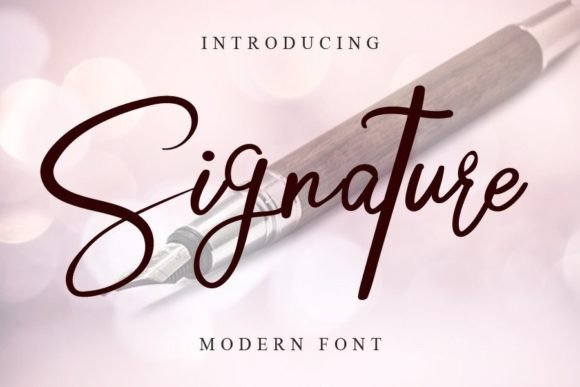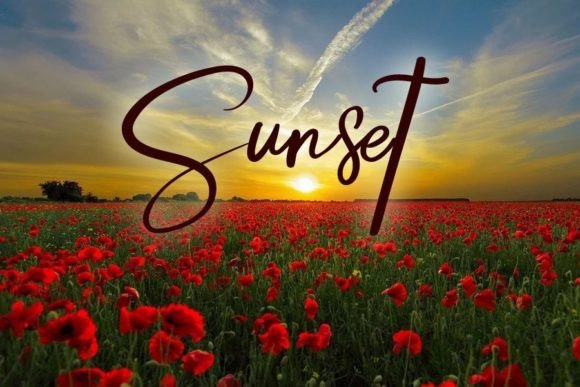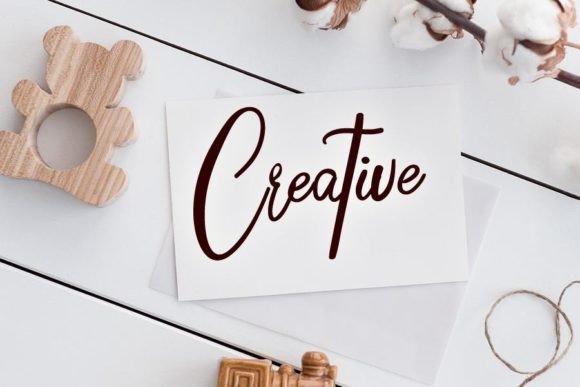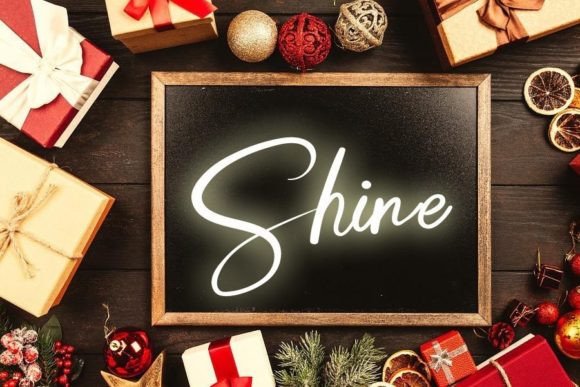
Indeed, Signature is a font that exudes style and elegance, making it the perfect choice for various design purposes. Its graceful script and refined appearance make it particularly captivating on wedding invitations, adding a touch of sophistication to the joyous occasion. The fluidity of Signature’s letterforms creates a sense of timeless beauty, setting the tone for a truly memorable event.
In the realm of gratitude, Signature finds its place on thank you cards. The handwritten touch of this font adds a personal and heartfelt dimension to your expressions of thanks. Whether you’re expressing appreciation for a kind gesture, a thoughtful gift, or a significant milestone, Signature elevates your gratitude, making it even more genuine and meaningful.
Quotes, those nuggets of wisdom and inspiration, come to life with Signature. Its elegant strokes enhance the profound words, transforming them into visually appealing pieces of art. Whether you’re creating wall art, social media posts, or printed posters, Signature lends a sense of class to the message, making it visually engaging and captivating for the readers.
Greeting cards become truly special when adorned with Signature. Whether it’s a birthday, anniversary, or any other celebratory occasion, this font adds a warm and personal touch to your heartfelt messages. The delicate curves and stylish flourishes of Signature create an inviting atmosphere, making the recipient feel cherished and valued.
In the business world, logos and business cards are essential elements of brand identity. Signature brings a unique charm to these designs, making your business stand out from the rest. Its handwritten feel adds a human touch to your brand, making it approachable and relatable to your audience. Whether you’re a boutique shop, a creative agency, or a service-oriented business, Signature adds a touch of class to your visual identity.
Every design that craves a handwritten touch finds its perfect match in Signature. Its versatility allows it to seamlessly integrate into a wide range of creative projects, making it a go-to choice for designers and enthusiasts alike. With Signature, your designs become more than just visuals; they become expressions of artistry and sophistication.
So, whether you’re designing wedding invitations, thank you cards, quotes, greeting cards, logos, business cards, or any other creative project, Signature is the font that elevates your designs to a level of elegance and charm that leaves a lasting impression on anyone who beholds its beauty.